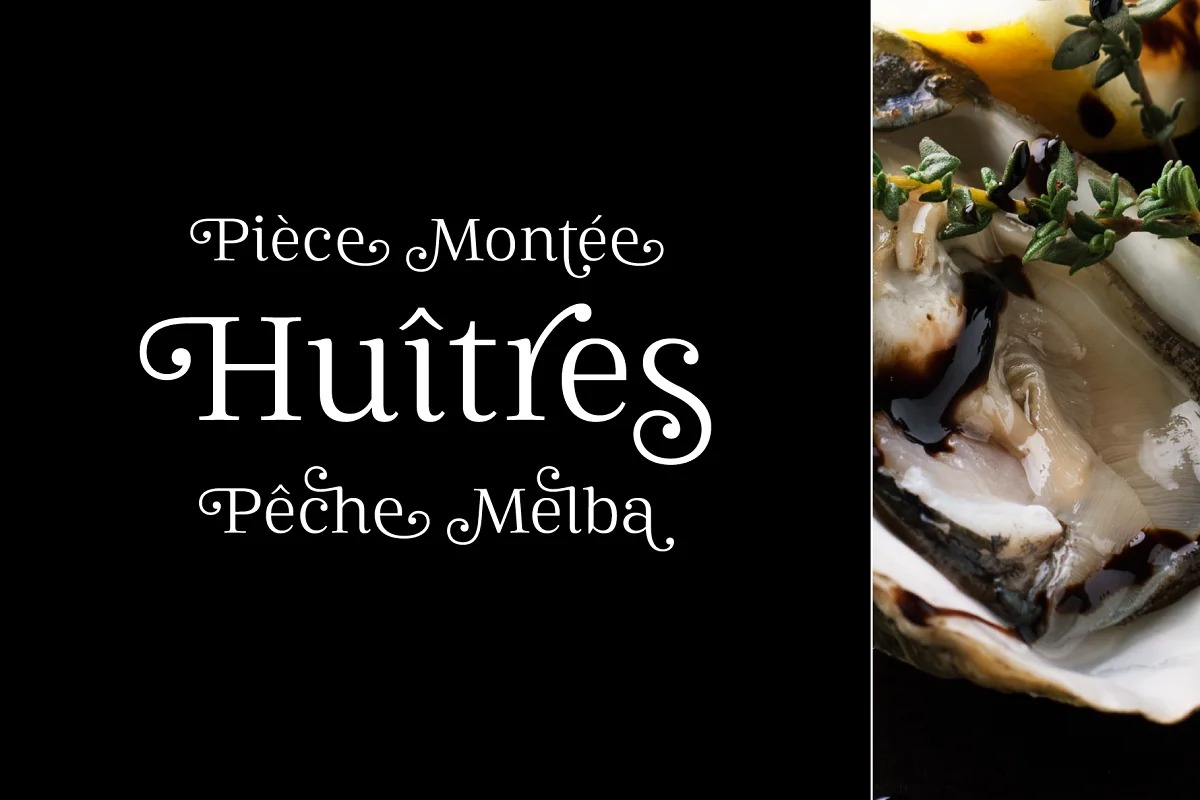
Mireille Font
Mireille Serif Font
This font is the elegant modern serif style with uppercase and lowercase feel nice balanced. Mireille is an effective set for creating identities for branding, posters, book covers, headlines, logotypes, restaurants, menu cards, wedding invitations and so on.
All your needs are supported by Mireille with a character set of 1084 glyphs covering all European languages and including advanced Open Type features as 10 Stylistc Sets with elegant Alternates, Standard and Discretionary Ligatures, Extended Numberset and Swashed Alternates.